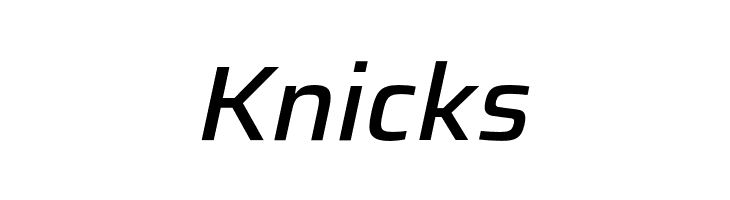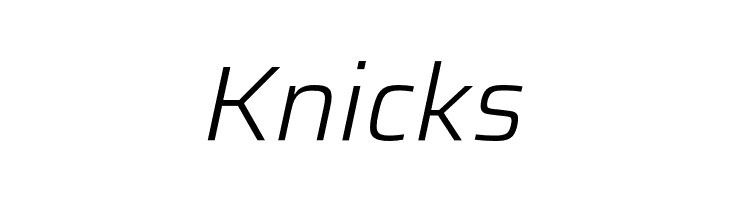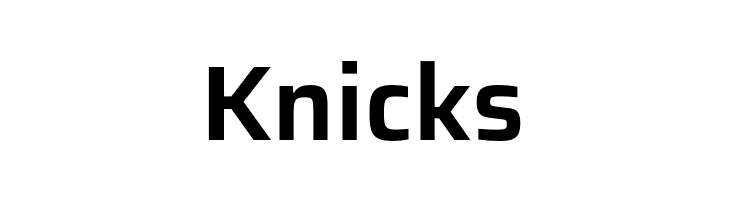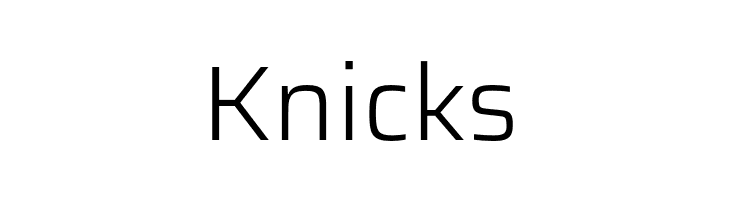
A sleek, modern italic font with an extra light weight and minimalist design.
A sleek, modern sans-serif font with an italic slant and uniform stroke width.
A modern, geometric sans-serif font with a clean and uniform appearance.
A modern, geometric sans-serif font with a clean and balanced design.
A sleek, modern sans-serif font with a light, italic style and normal spacing.
A modern, geometric sans-serif font with a clean and professional appearance.
A modern, geometric sans-serif font with uniform stroke widths and a clean aesthetic.
A modern, italic sans-serif font with clean lines and a dynamic style.